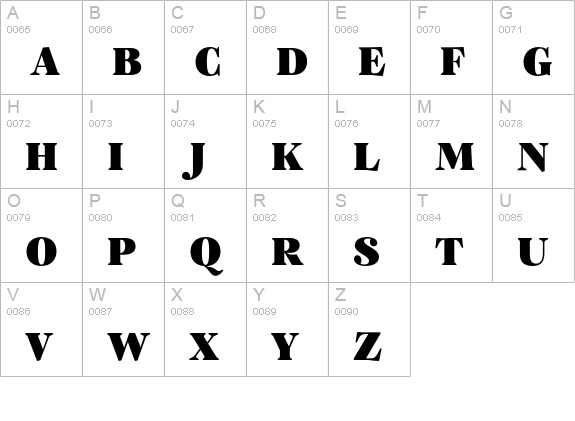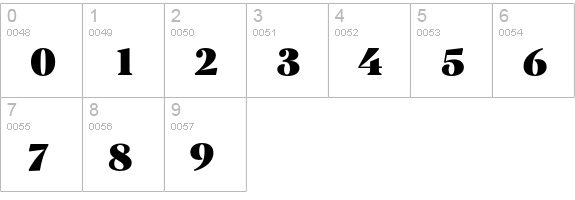
PFRegalTextPro-UBlack is a stunning and elegant font that exudes sophistication and professionalism. With its bold and commanding presence, this font is perfect for making a statement in headers, titles, and logos. The sharp serifs and clean lines give it a timeless appeal that is sure to impress. Best of all, PFRegalTextPro-UBlack is available for free download at FontsMarket.com. Now you can elevate your design projects with this premium font without breaking the bank. Don't miss out on the opportunity to add this versatile and stylish font to your collection. Download PFRegalTextPro-UBlack today and take your designs to the next level!